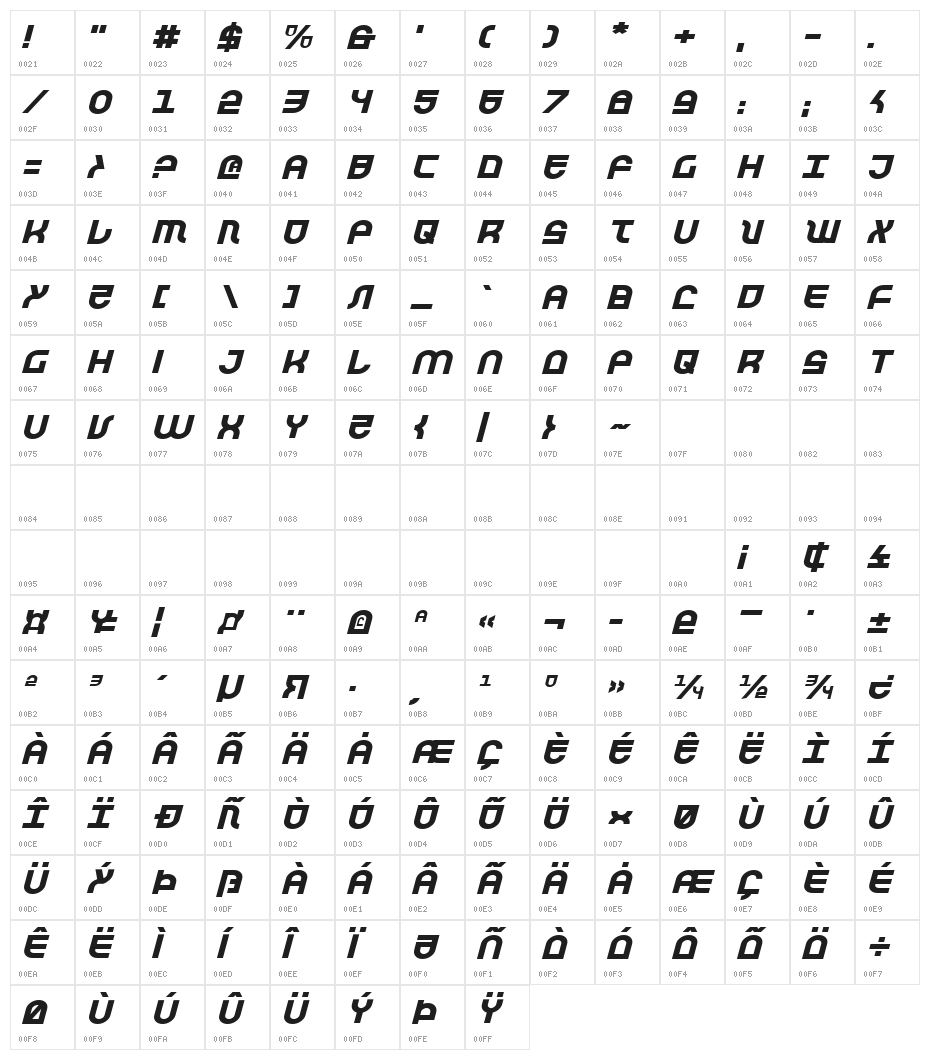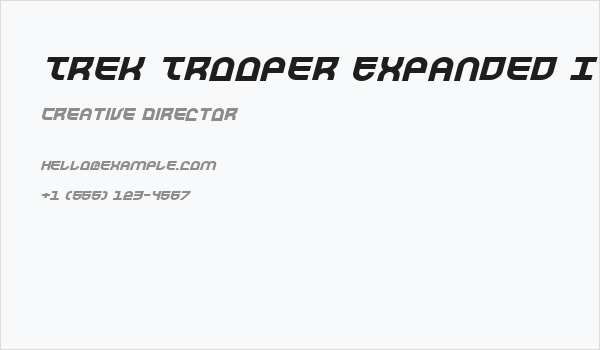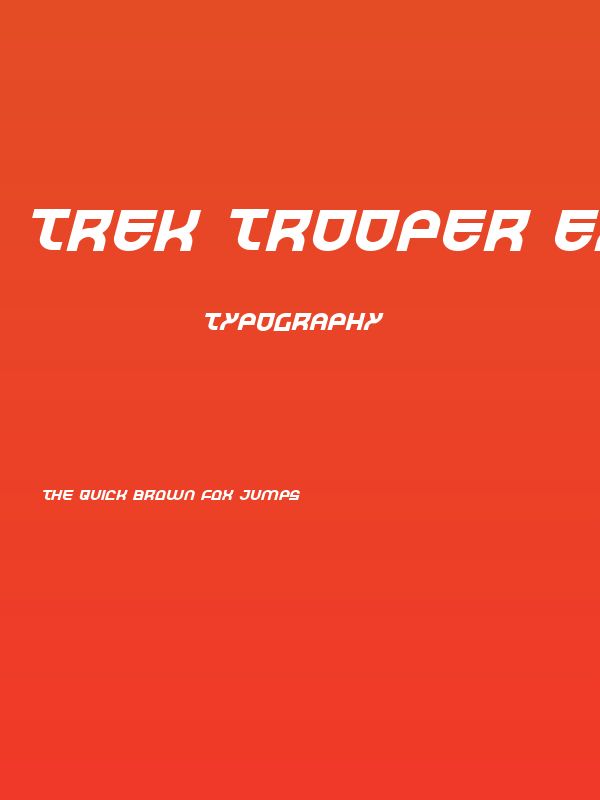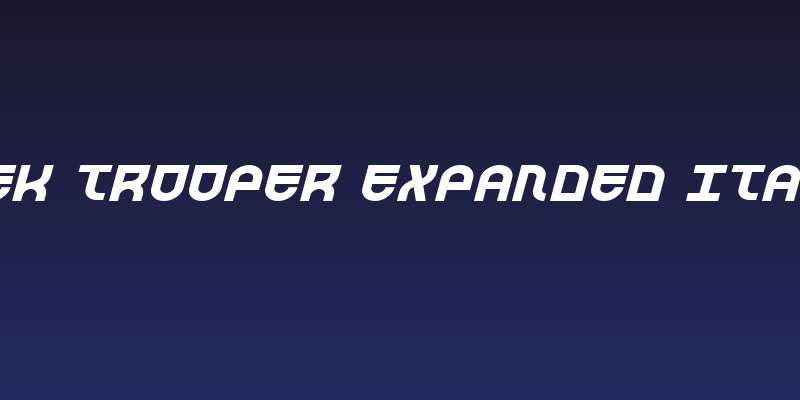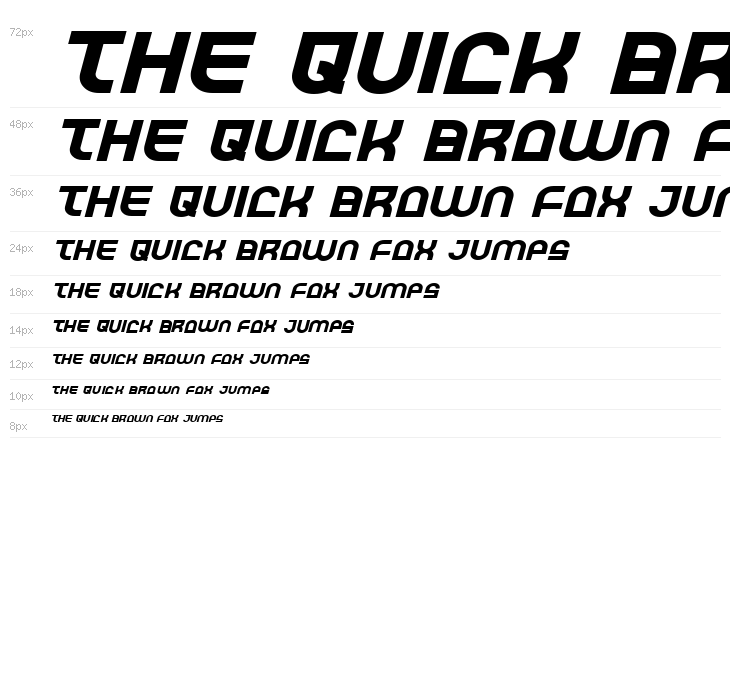
Trek Trooper Expanded Italic Font
Trek Trooper Expanded Italic Description
This font features a futuristic and dynamic design, characterized by its expanded and italicized form. The letters are bold with a distinct slant, giving a sense of motion and speed. The geometric shapes and sharp angles provide a modern and edgy appearance, making it suitable for projects that require a strong visual impact. The numbers and special characters maintain the same stylistic elements, ensuring consistency across all glyphs. The overall design is sleek and contemporary, ideal for technology-related themes or creative branding.
| Proposed Projects | Ideal for technology branding, sci-fi themed designs, video game titles, and modern advertising. |